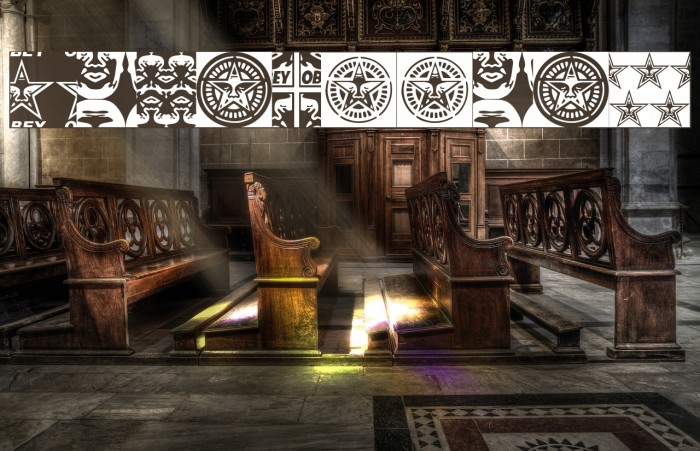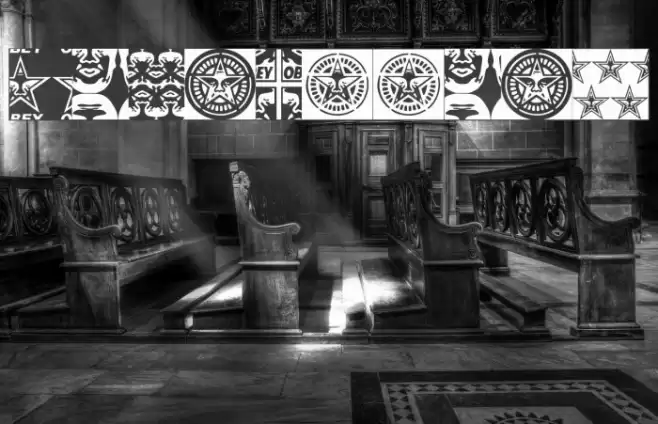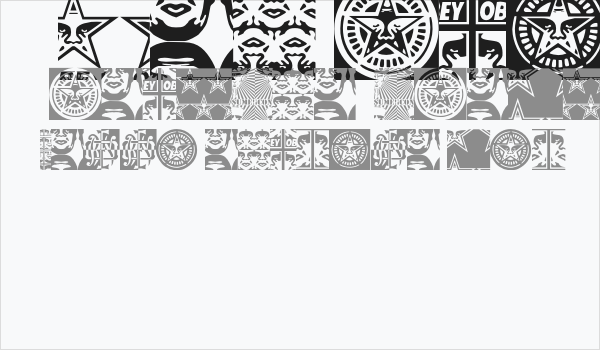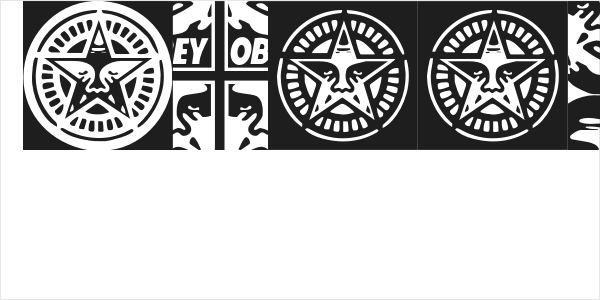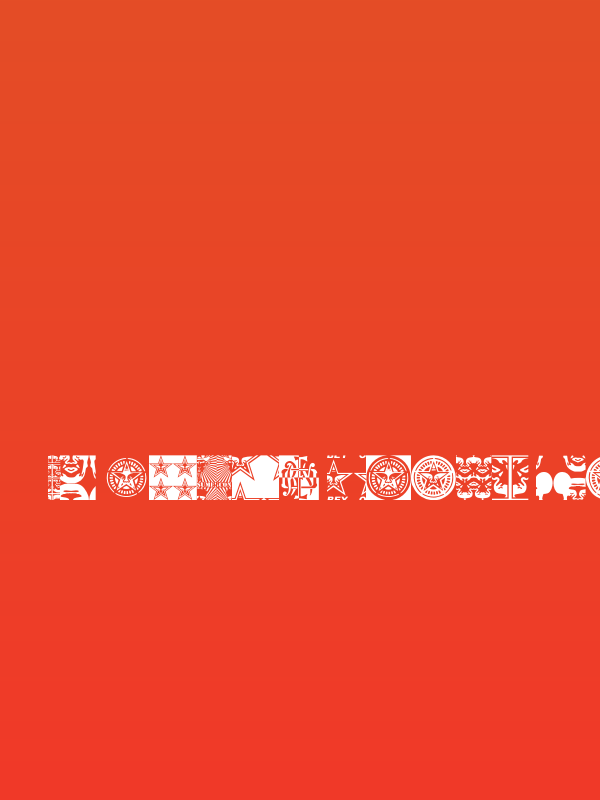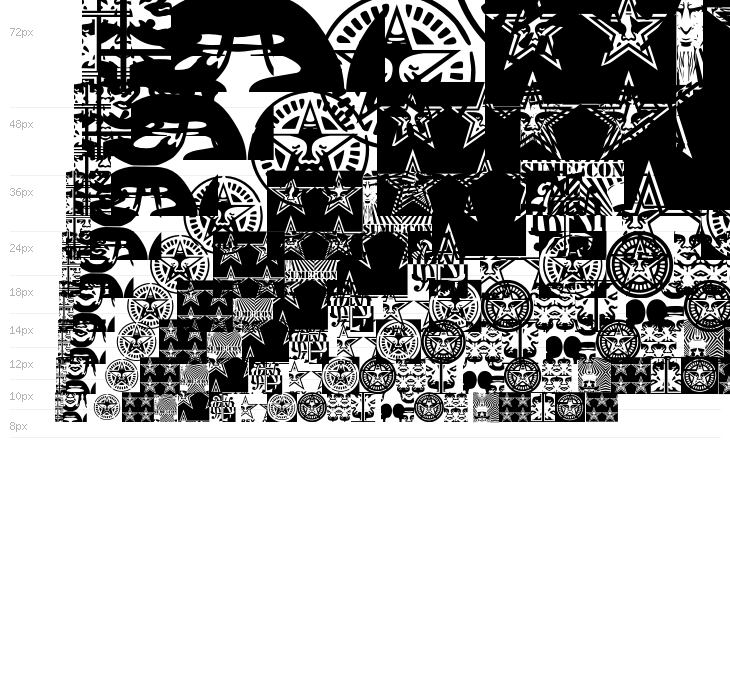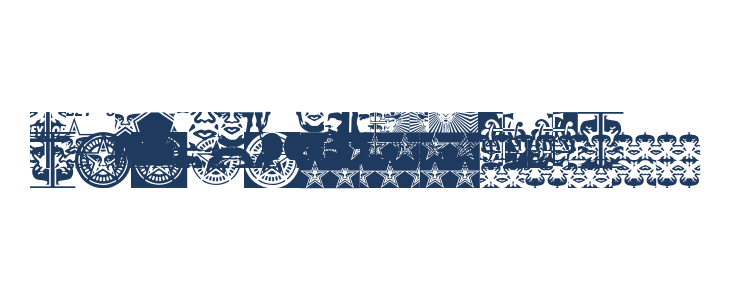
ObeyWrappers Font
ObeyWrappers Description
This design is a collection of intricate and bold graphic elements rather than a traditional font. It features a variety of iconic imagery, including stylized faces, stars, and abstract patterns. The elements are highly detailed and visually striking, with a strong contrast between black and white. The design is reminiscent of street art and propaganda posters, conveying a sense of rebellion and bold expression. Each character is unique, making it more suitable for decorative purposes rather than text communication.
| Use Case | Logos, Posters, Artistic Projects |
| Proposed Projects | Ideal for use in poster design, album covers, streetwear branding, and other projects that require a bold, artistic statement. |